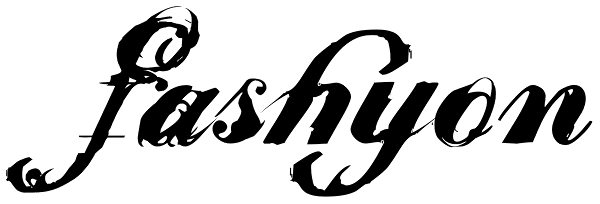
Fashyon
Fashyon was created as an experiment blending script and calligraphic elements, and with a perfect balance between characters, looks dynamic yet with a classical look.
Fashyon Font